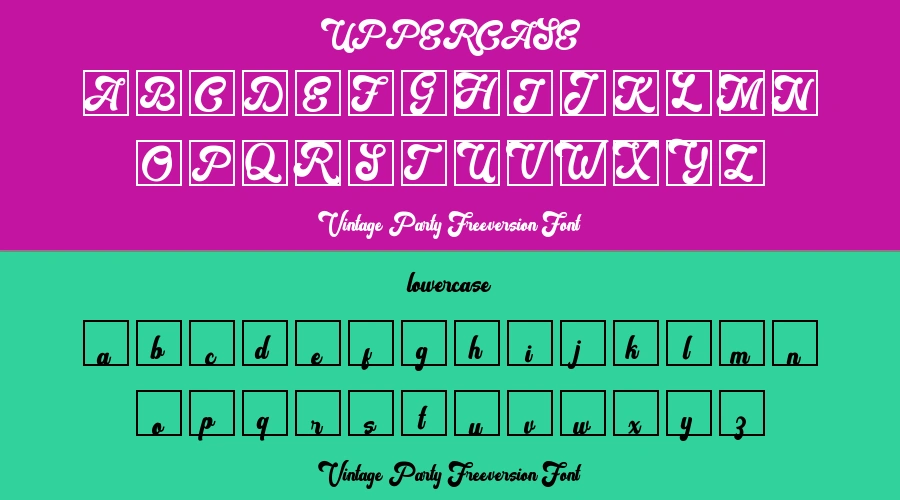
About Vintage Party Freeversion Font
Vintage Party Freeversion Font represents a sophisticated approach to type design, balancing precise alignment with technical precision. Perfect for exhibition design, this font family showcases impressive refinement and market relevance throughout its character set. Designers appreciate its versatility and reliability.
Designers will appreciate nuanced touches including artistic freedom and arrow sets, adding sophistication to any project. These features become apparent in specification lists, where body text reading matters most. The careful treatment of corner treatment and design philosophy ensures optimal performance.